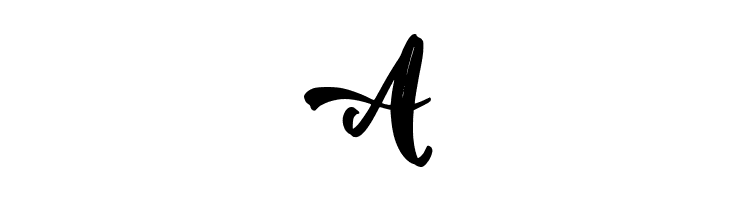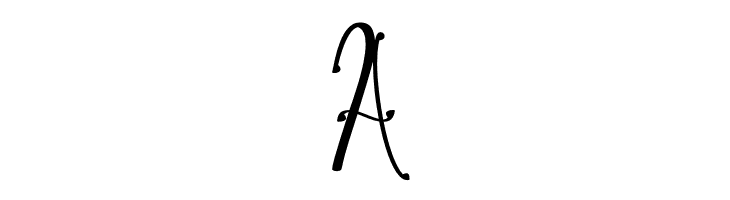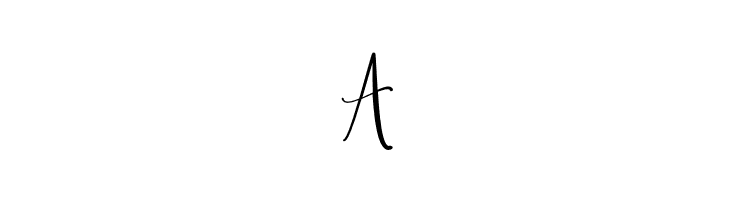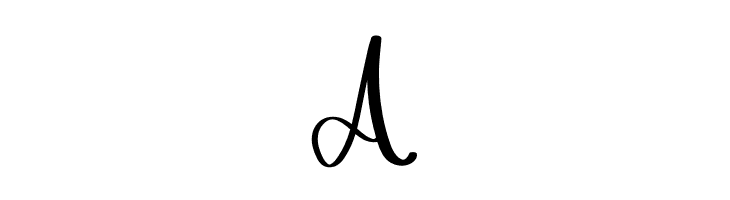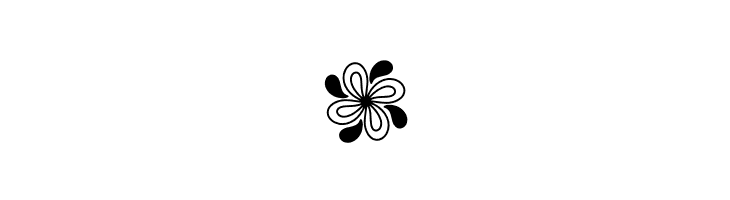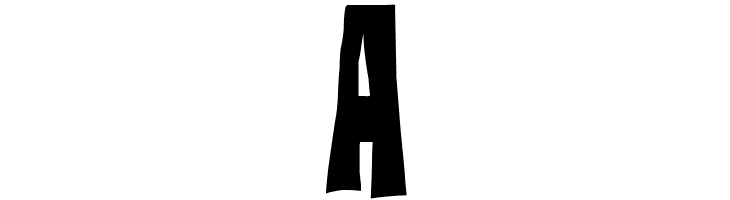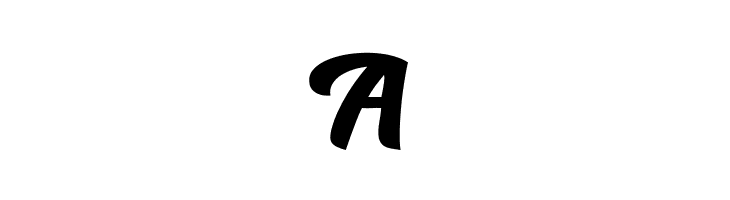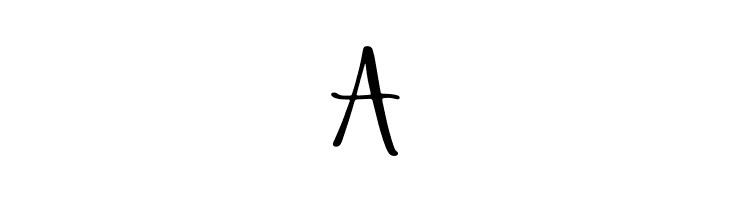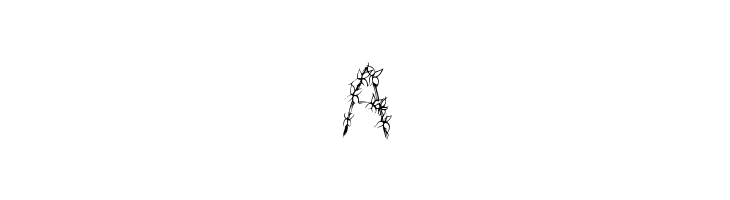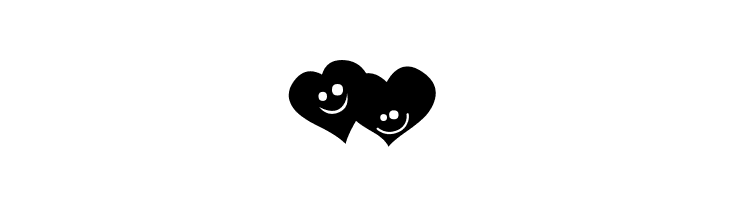
• Flower Signature Personal Use
A playful, elegant handwritten font with smooth, flowing curves.
• Flower Street Regular
A bold, three-dimensional font with a street art-inspired style.
• Flower Winter
A bold, expressive script font with fluid, brush-like strokes.
• Flowerbee
A playful, bold handwritten font with a casual and friendly style.
• FlowerbloomRegular
A graceful and flowing script font with elegant cursive strokes.
• FLOWERcomic
• FlowerExplosion
A playful, decorative font with floral accents on bold, rounded characters.
• FLOWERFLOW
A decorative font with floral elements and bold, artistic letterforms.
• FLOWERFLOW
A playful, decorative font with floral elements and bold, artistic letterforms.
• FlowerHeader
A decorative font with intricate floral designs forming each character.
• FLOWERHEARTPERSONALUSE-Regular
A decorative font with floral motifs and elegant script lettering.
• FloweringBuds
A whimsical, playful font with flowing, organic lines and a handwritten feel.
• FlowerPowerRound-Medium
An ornate, floral-themed decorative font with intricate botanical designs.
• Flowers
A bold, elegant script font with flowing, calligraphic strokes.
• Flowers for you
A playful, modern font with tall, narrow characters and clean lines.
• Flowers Initials
A decorative serif font with intricate floral embellishments.
• Flowers Kingdom
A bold, artistic font with a hand-drawn, playful style.
• Flowers of summer Personal Use
A bold, flowing script font with a modern, decorative style.
• Flowers Personal Use Regular
An elegant, flowing script font with ornate, decorative letterforms.
• Flowersforyou
A playful, modern font with tall, narrow letters and consistent stroke thickness.
A bold, hand-drawn font with a rough, textured appearance and playful style.